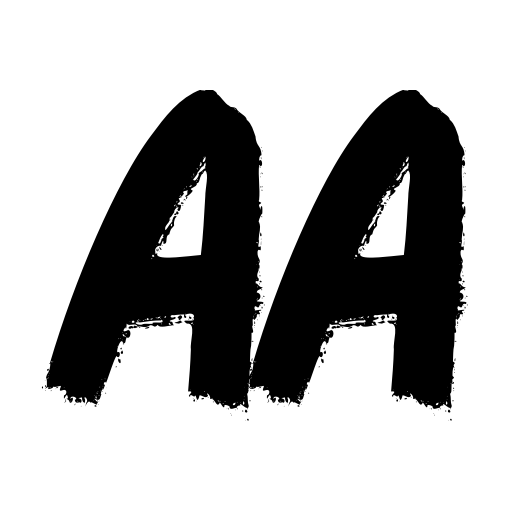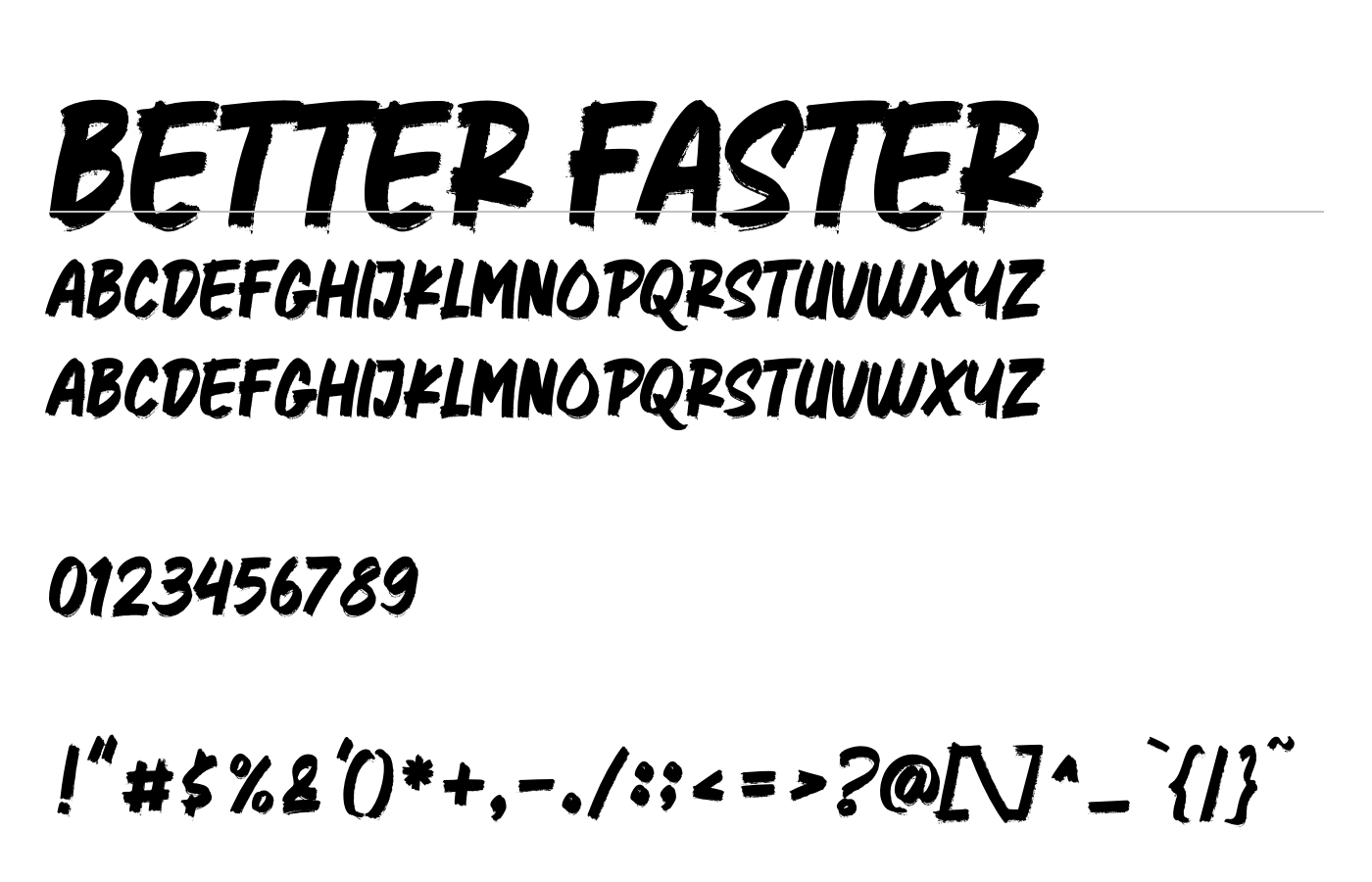
Better Faster Font is a bold, energetic brush script with a hand-painted look that conveys motion and urgency. Its rough texture and dynamic strokes make it perfect for creating attention-grabbing headlines or branding that feels spontaneous and lively. This font works well in sports, creative projects, and any design needing a strong, expressive character.
Better Faster Font
About Better Faster Font
| Font family | Better Faster Font |
| Designer | Ibnu Utomo |